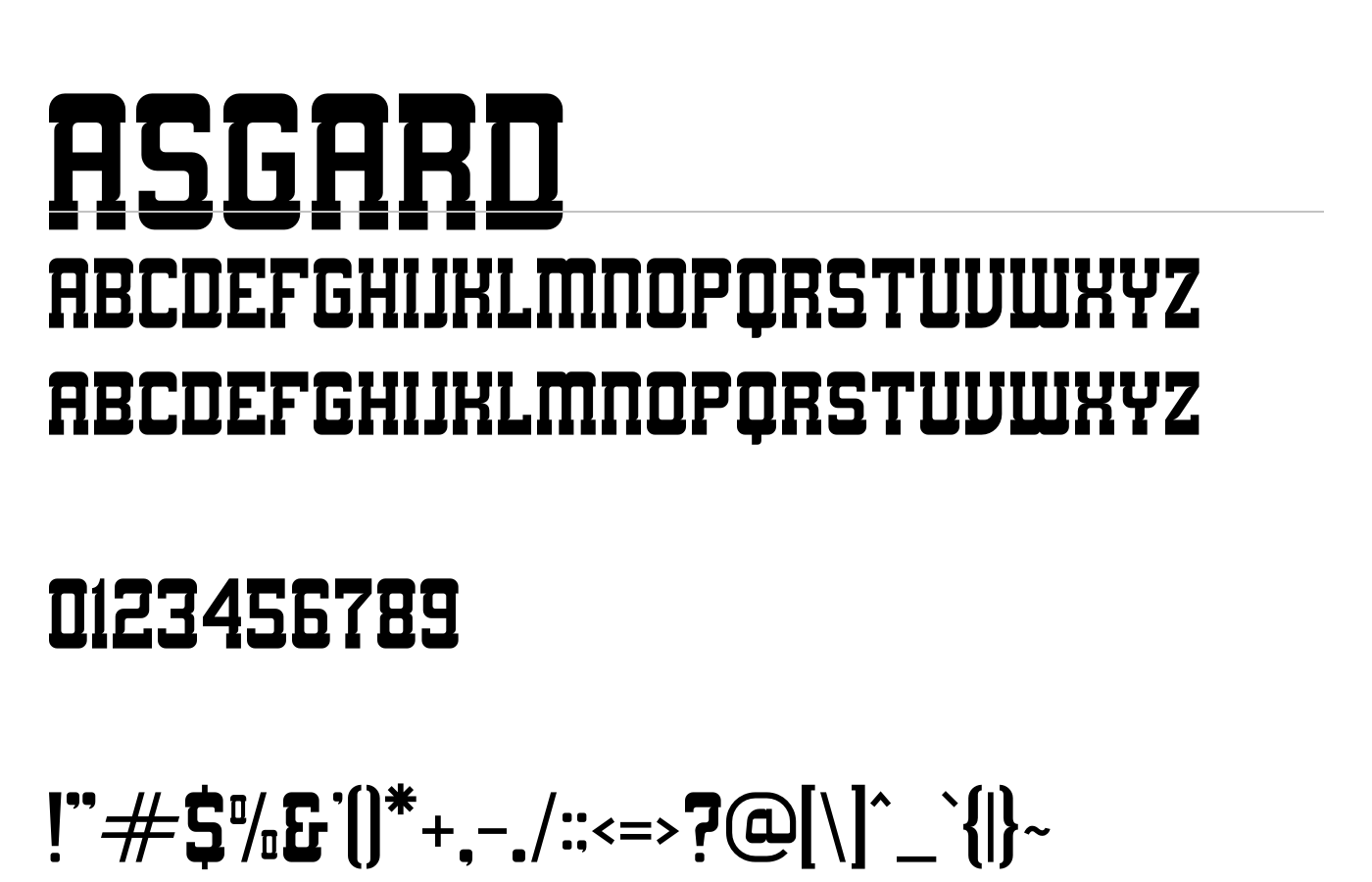
Asgard is a bold slab serif font characterized by its strong, blocky letterforms with thick, unbracketed serifs and a condensed width, giving it a sturdy and powerful presence. Its vintage-inspired style, high contrast between thick and thin strokes, and heavy weight make it ideal for creating impactful headlines, logos, and display text that demand attention with a rugged yet refined personality. This font works well in branding and editorial design where a sense of strength and tradition is desired.
ASGARD Font
About ASGARD Font